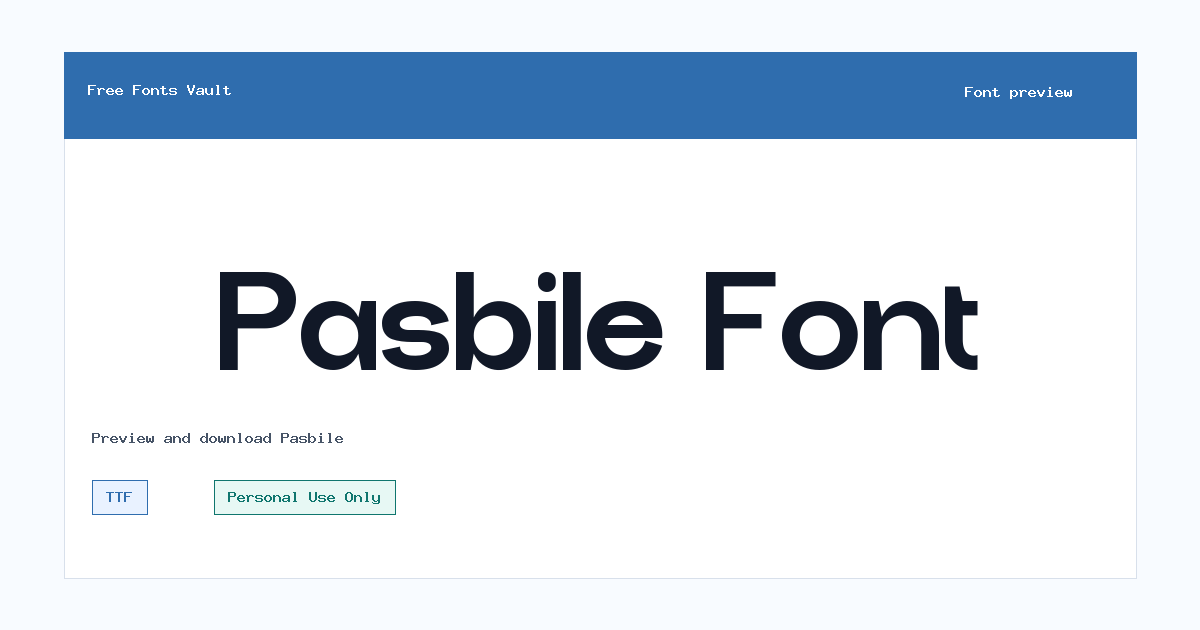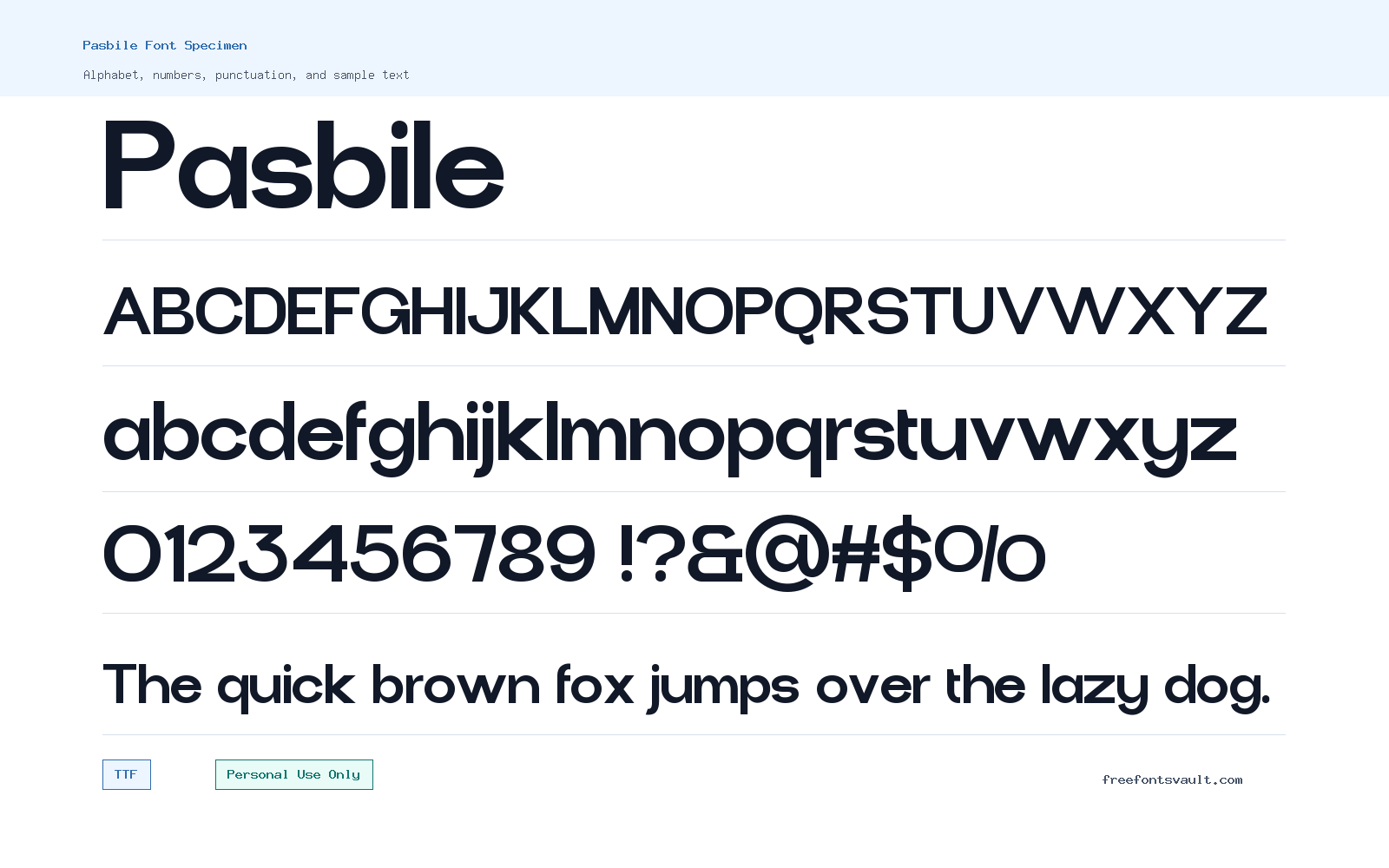
Pasbile
Pasbile Font
• Designer Maikohatta
Pasbile font.
Pasbile is a clean sans serif font designed for personal-use projects where you need clear letterforms, simple styling, and an easy preview before downloading.
About Pasbile Font
Pasbile has the straightforward look visitors usually expect from a sans serif: plain shapes, an upright regular style, and a balanced weight that can work in many short text settings. Because the family is offered as a regular 400 style, it is best treated as a simple, single-style font rather than a large type system. That makes it easy to test quickly in the preview box with names, short titles, labels, quotes, and small blocks of text. If you are choosing a font for a clean poster, a personal logo draft, a social graphic, a school project, or a simple web mockup, Pasbile is worth trying when you want the typography to stay neat instead of decorative.
Use the preview area to check the exact words you plan to design with, especially if your text includes punctuation, numbers, mixed case, or accented characters. A regular-weight sans serif can look very different depending on spacing, size, and background color, so test it at both headline and smaller sizes before committing. Pasbile should be most comfortable in short headings, simple branding experiments, captions, menu-style text, and clean layout accents. For longer reading, compare it with a dedicated body-text font and watch for spacing, line height, and character coverage. If the design feels too plain on its own, pair Pasbile with a warmer serif, a handwritten accent, or a bolder display face, but keep the contrast controlled so the layout still feels readable.
• Regular 400 sans serif style with an upright, clean appearance
• Clean layout tests where a regular sans serif is easier to read than a decorative display font
The designer name is listed as Maikohatta. No foundry name or designer website is confirmed for this entry.
What kind of font is Pasbile?
Pasbile is categorized as a sans serif font in a regular, upright 400 weight.